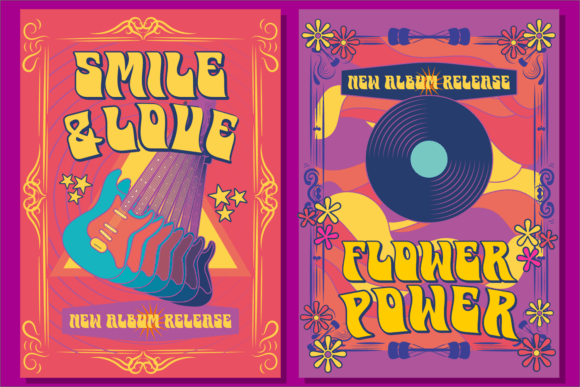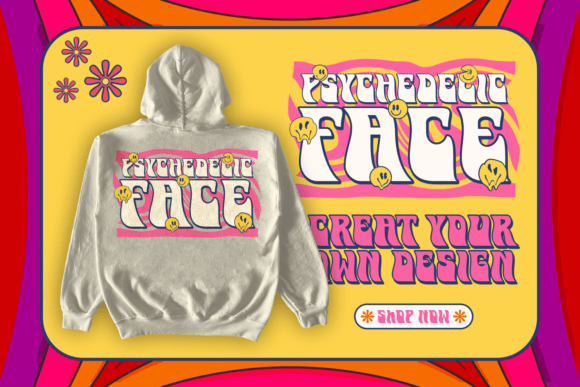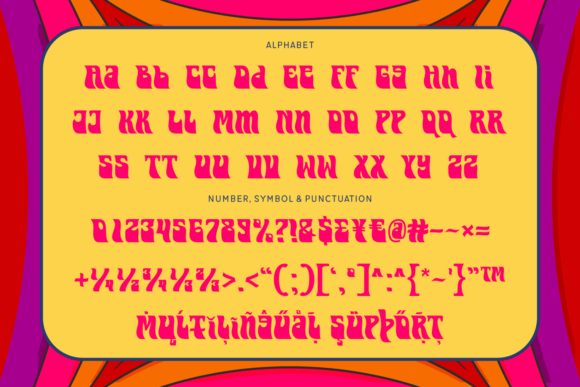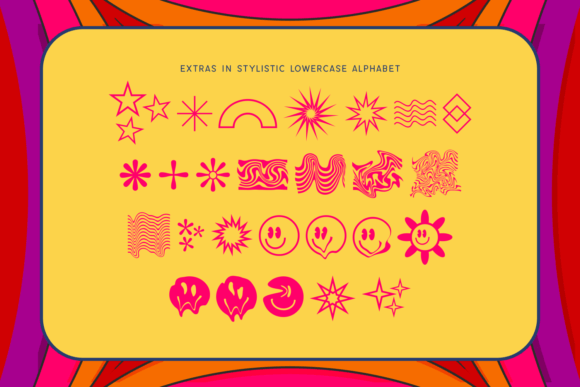
Introduction to Psychedelic Vibes Font
Psychedelic Vibes is a unique and playful display font.
Thick and groovy, this trippy set of characters is perfect for projects that require bold and joyful typography Unleash your creativity and use the extra glyphs included to create something truly outstanding.
Key Features of Psychedelic Vibes Font